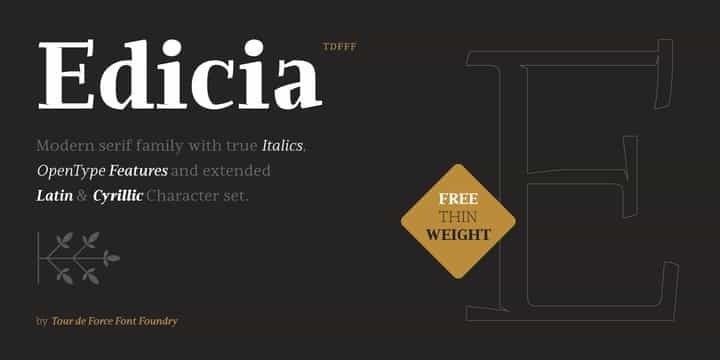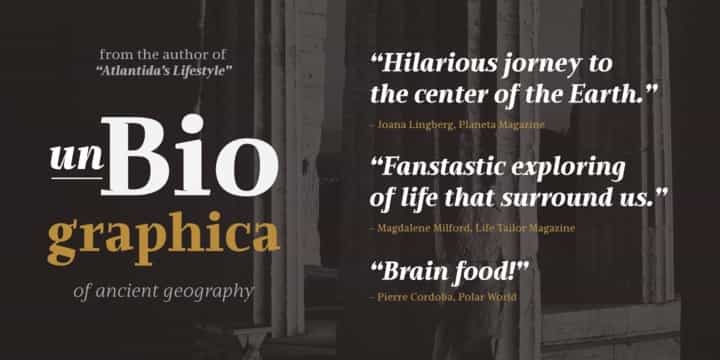
Edicia Font is simple and clean serif font family that is different from others. It is ideal for beautiful logos, titles, web designs, fashion magazines, and branding. It is stunning in all capitals with a wider letter separation if you want to opt for a more elegant style or lovely on its own in both capital and small letters for those who wish for a timeless appeal.